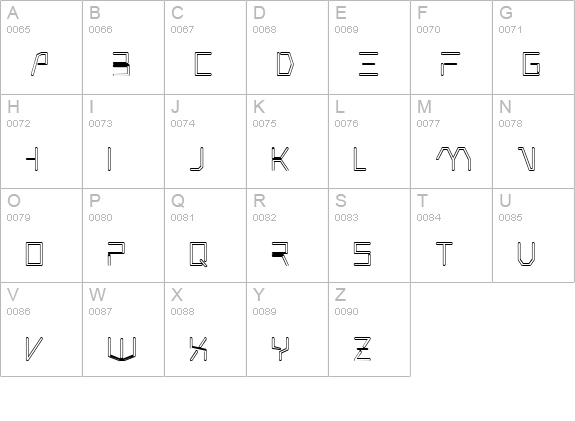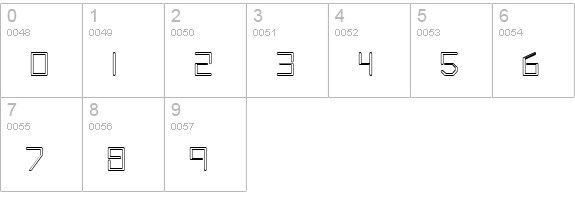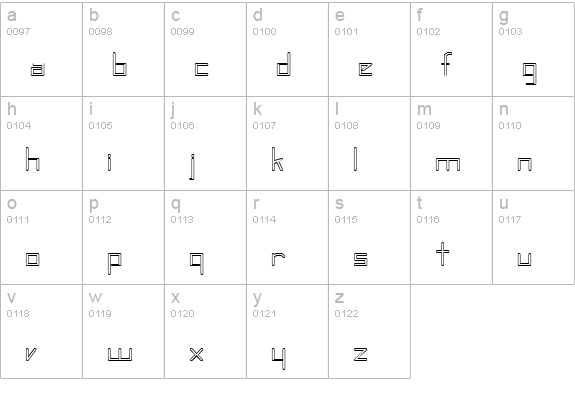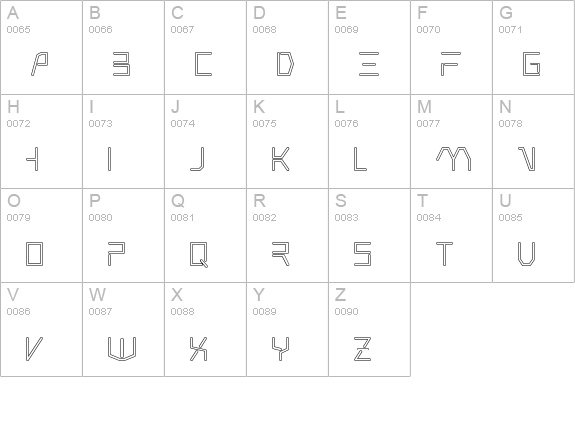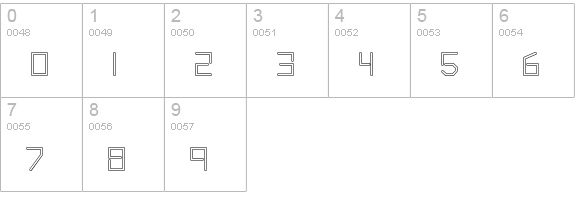
AeroflotOpen Font Details
AeroflotOpen is a modern and stylish font that exudes sophistication and elegance. With its sleek lines and unique design, this font is perfect for a wide range of design projects, from branding to advertising to web design. The versatility of AeroflotOpen makes it a must-have for any designer looking to make a bold statement. What's more, AeroflotOpen is available for free download at FontsMarket.com. This means that you can access this stunning font at no cost, making it a valuable addition to your font library. Whether you're working on a personal project or a client's project, AeroflotOpen is sure to impress with its clean and contemporary aesthetic. Don't miss out on the opportunity to elevate your designs with the free AeroflotOpen font. Download it today and see the difference it can make in your creative projects.